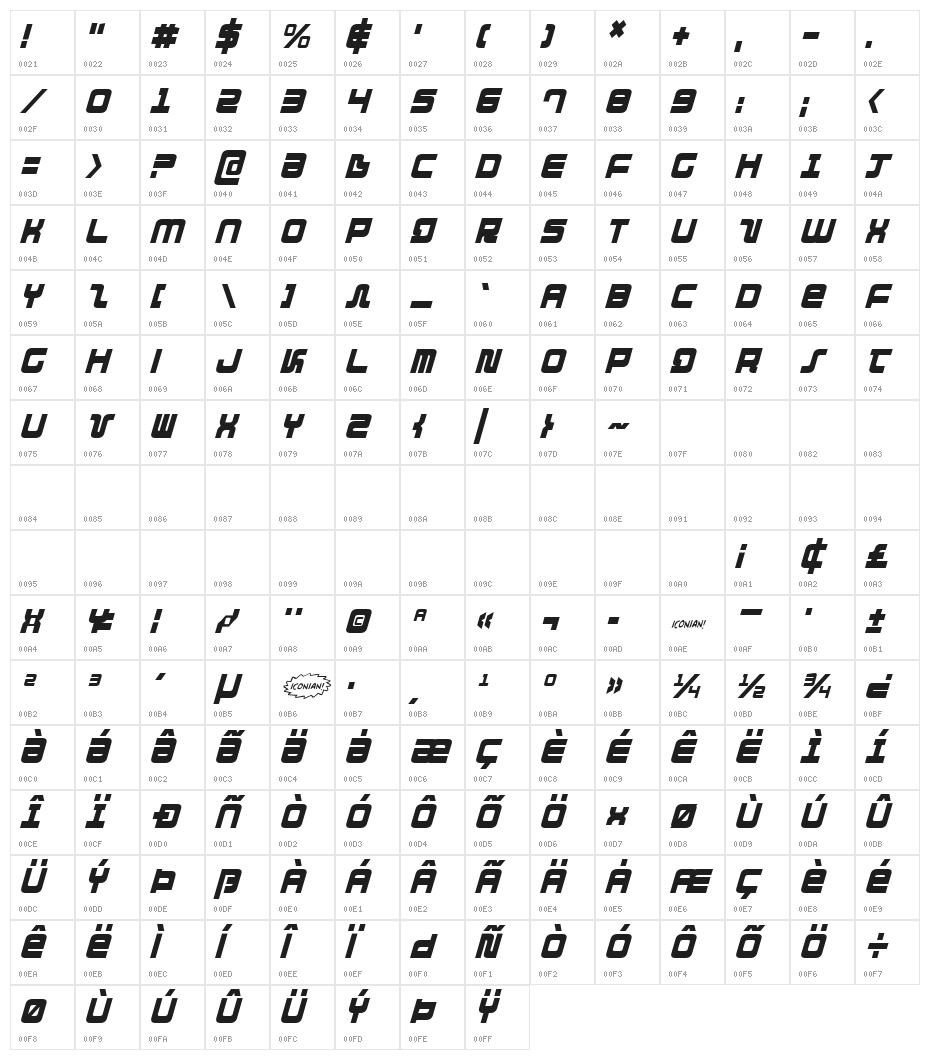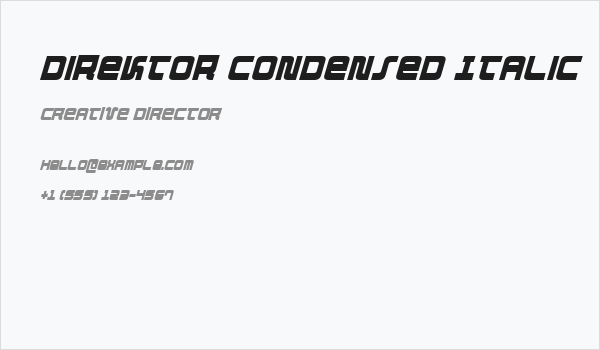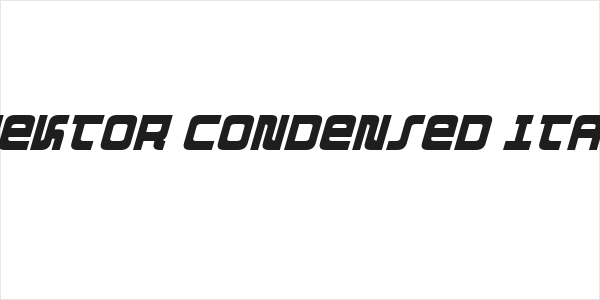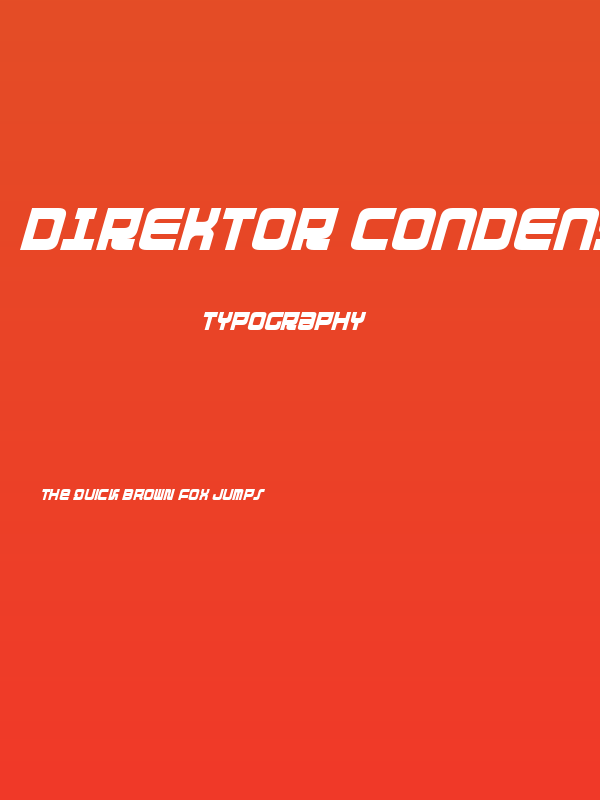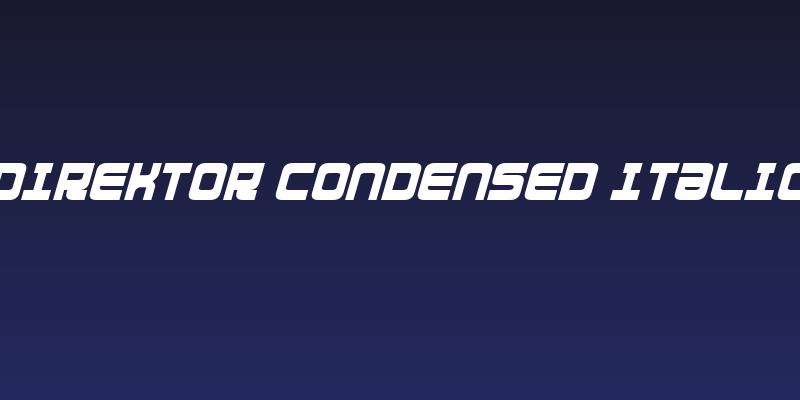
Direktor Condensed Italic Font
Direktor Condensed Italic Description
This font features a bold, condensed style with a distinct italic slant, giving it a dynamic and modern appearance. The characters are tightly spaced, enhancing its compact look. The strokes are thick and consistent, providing a strong visual impact. The angular design of the letters adds a futuristic and edgy feel, making it suitable for attention-grabbing headlines and displays. The numerals and special characters maintain the same bold and slanted characteristics, ensuring uniformity across all glyphs.
Use CaseHeadlines, Logos, Displays
Proposed ProjectsIdeal for use in branding, advertising, sports team logos, and modern digital interfaces where a strong, impactful presence is needed.